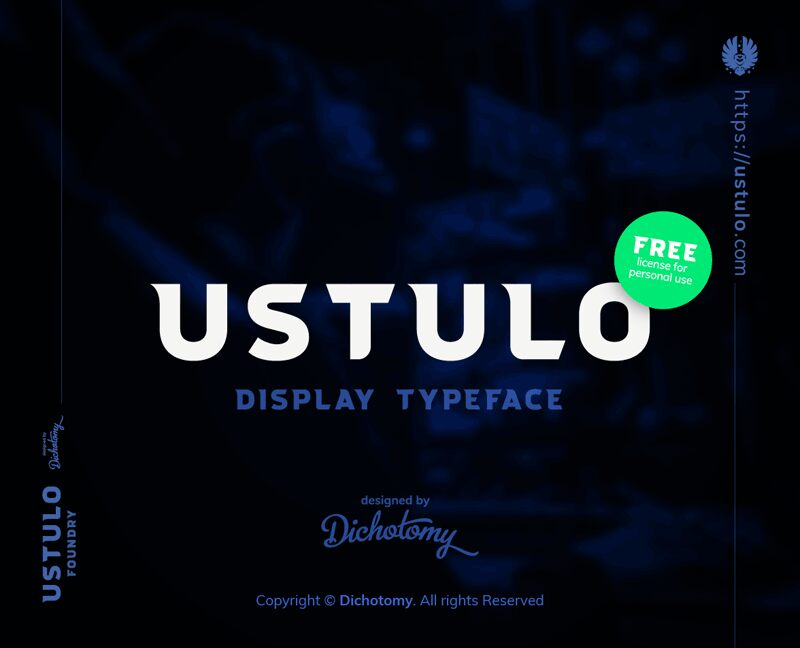
Ustulo Typeface is a modern display typeface. With strong clean perfect shapes it is sure to make a bold statement. It works well on it's own, and still work well with other fonts while asserting it's dominance through it's beautiful rounded curves and simplicity. Wether using it for logo design, or as your primary font for headings on your website, it will communicate whatever you need to with confidence and strength.